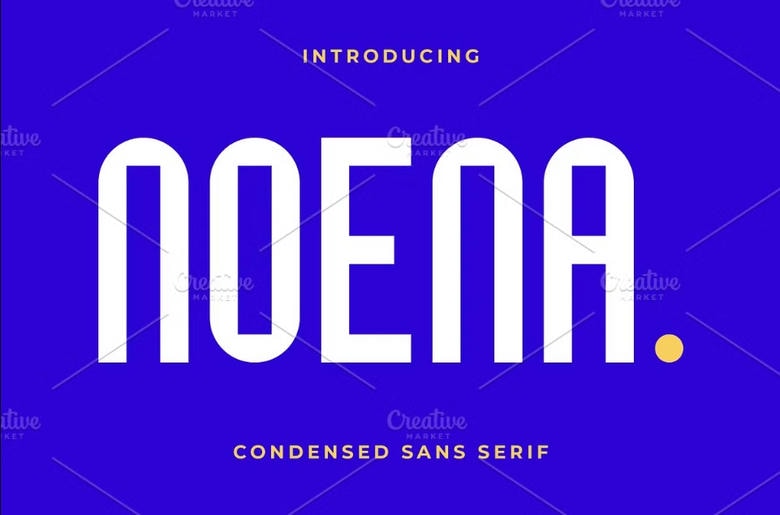
Noena Font
Noena is a geometric Sans Serif typeface designed by Iwan Alwan; slimmer letterforms with sharp subtle corners that give it a fresh contemporary look. Due to the thin, elongated shape of its lettering, Modern is best suited for headlines, logos and branding that need a slim typeface. Offering multilingual support, ligatures, and alternates on top of the sturdy construct,
Noena is a geometric sans with clear, no-nonsense letterforms which will fit best into works that require precision and clean lines. These fonts are perfect for creation such things as product logo, logo for wedding cards, clothing brand, Vintage design, and much more.
Noena Sans Serif Font